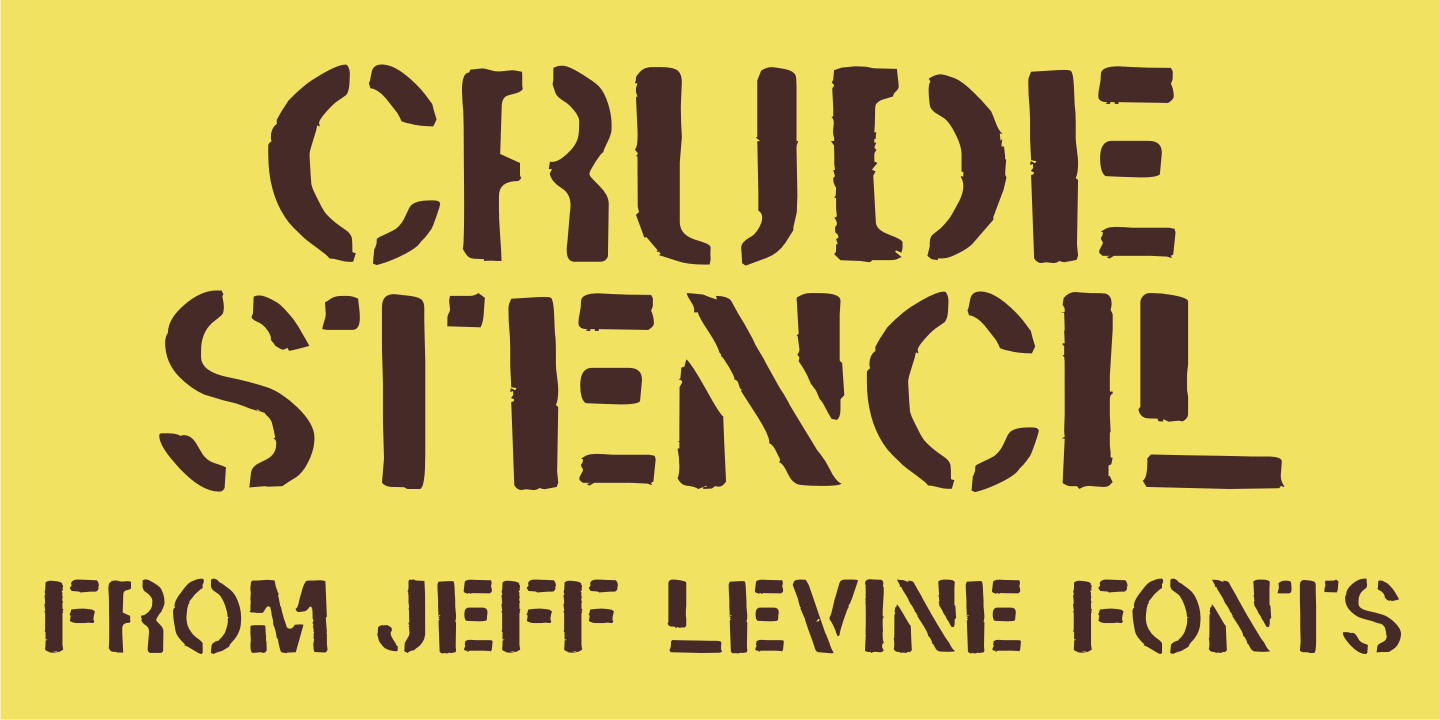
The Crude Stencil JNL Font is perfect for military-themed designs, industrial warning signs, urban street art, construction site markings, warehouse labeling, tactical equipment branding, grunge poster designs, protest signage, shipping container graphics, and raw industrial aesthetics.
What makes the Crude Stencil JNL Font exciting is its authentic ability to capture the raw, unrefined power of industrial stenciling through deliberately imperfect letterforms that embody the gritty reality of working environments and military functionality. This rugged typeface features rough edges, practical construction, and utilitarian character variations that instantly convey strength, durability, and no-nonsense functionality. Each letter appears battle-tested and field-proven, representing the honest craftsmanship of tools designed for real-world application rather than aesthetic perfection.
The Crude Stencil JNL Font family includes regular, bold, condensed, and weathered versions, along with industrial symbols, military markings, and utilitarian decorative elements that enhance its raw appeal across various industrial and tactical design applications.
Whether you're creating industrial branding or designing authentic military-style materials, Crude Stencil JNL Font Free Download delivers maximum impact and genuine industrial authenticity. Its deliberately rough letterforms ensure strong readability while maintaining that essential unpolished character that speaks to workers and military personnel who value function over form. The font's tactical features include contextual alternates, industrial ligatures, and weathered variations that automatically create authentic field-tested aesthetics. Industrial designers and military contractors consistently choose this font for projects requiring genuine utilitarian credibility and raw functional appeal. The Crude Stencil JNL Font transforms ordinary text into powerful declarations of industrial strength, making it an indispensable tool for any designer's tactical typography arsenal.